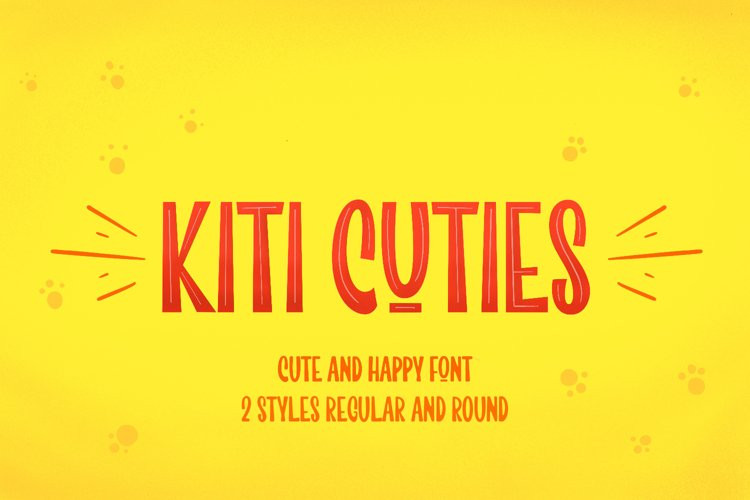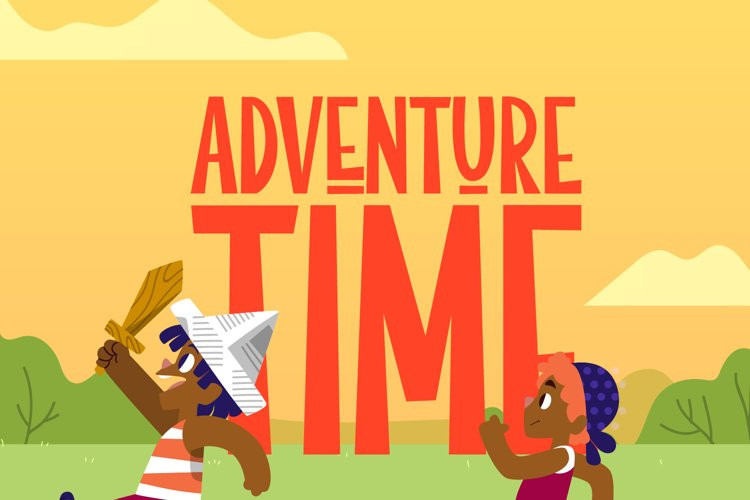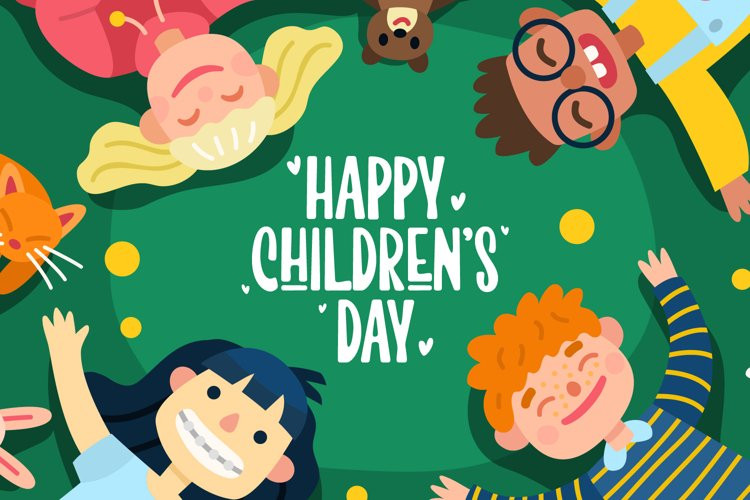
Kiti Cuties Font
Kiti Cuties FontHi, i want to introduce my newest font Kiti Cuties. Kiti Cuties is a playful sans serif with 2 styles : regular and round. The regular one have a stiff shape and the round one have a round shape that more looks playful. Kiti Cuties is a allcaps font with 4 variations letter in lowercase e,h,o,u that makes your design looks more cheerfull. Kiti cuties is made to help you create a kids and fun theme design such as birthday card, baby shower card, greeting card and many more.